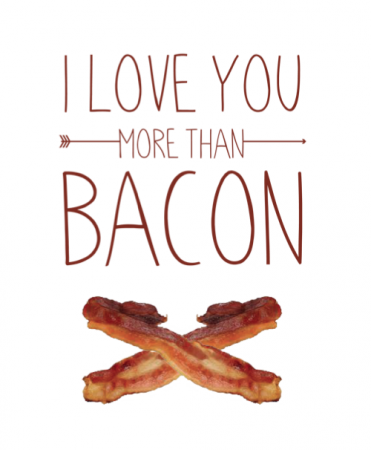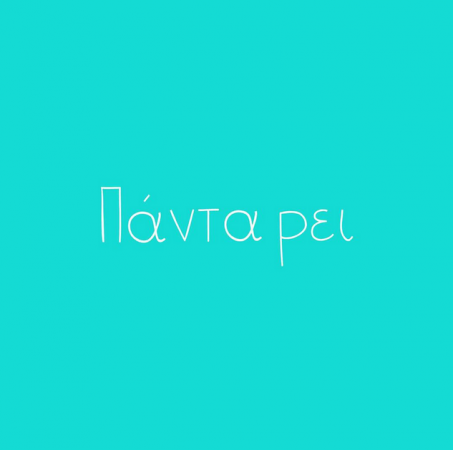
Chloe Font
About Chloe Font
Chloé is a handwritten typeface by GUD.
Sweet, romantic and just a little bit hipster ????
[you can always say right thing with Chloé, also in GREEK]